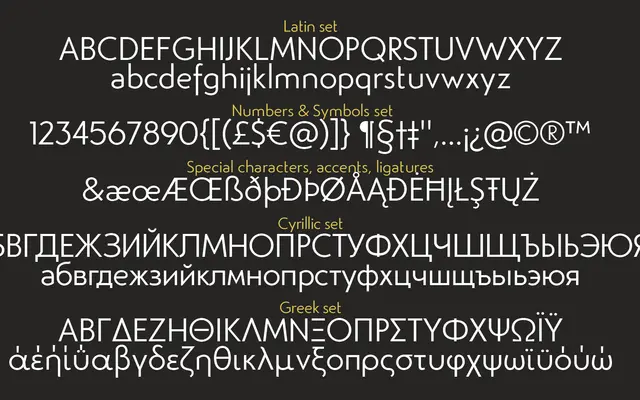
Studio Gothic
Zetafonts · Andrea Tartarelli, Francesco Canovaro, Cosimo Lorenzo Pancini · 2017
A geometric sans in eight weights drawing on Alessandro Butti's 1930s Semplicità rather than Futura directly, with an alternate subfamily offering additional letterform variations.
Designed by Andrea Tartarelli with Cosimo Lorenzo Pancini and Francesco Canovaro, the family revisits the spare proportions of Butti's Semplicità while introducing its own takes on letter shapes and spacing. Italics carry slight calligraphic traces that make them suitable for display and logotype work in their own right. The Alternate subfamily adds further glyph variations across all eight weights, and the full set covers over 200 languages across Latin, Greek and Cyrillic scripts.
Rooted in the geometric modernist tradition via Futura, but filtered through Alessandro Butti's Semplicità, giving it a slightly warmer, more individual character than a pure geometric sans.